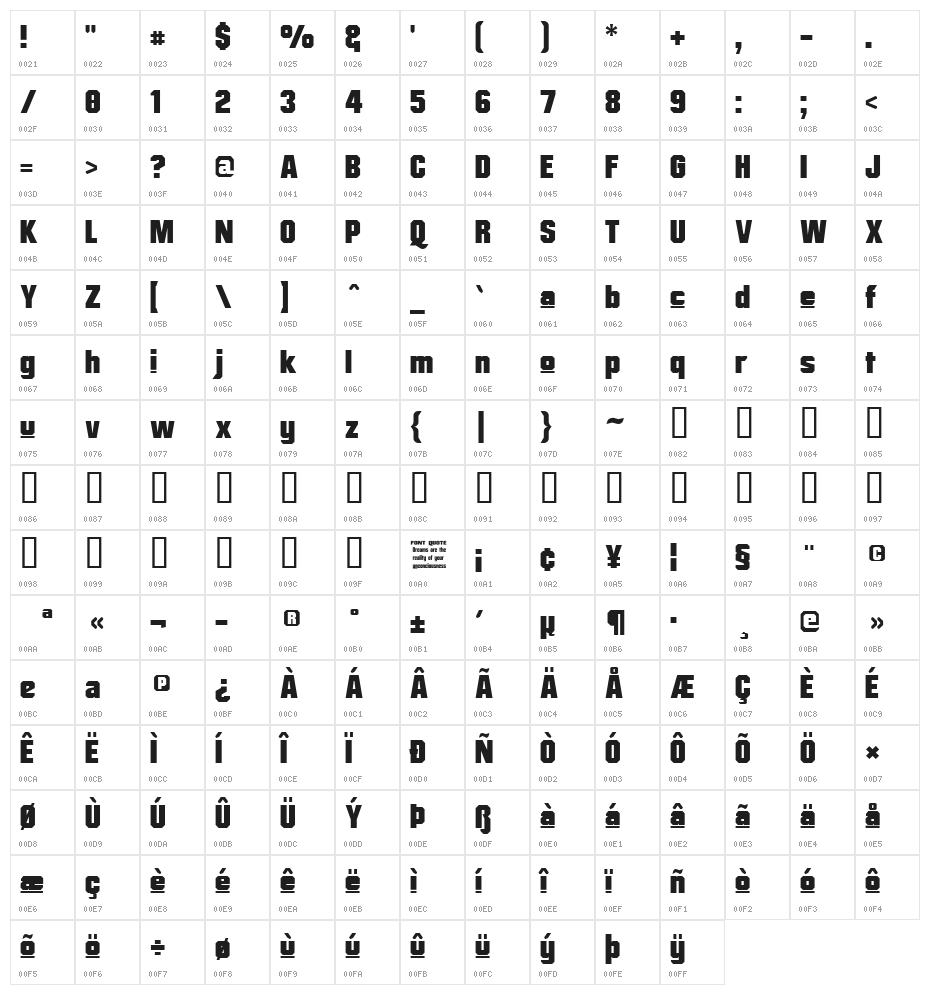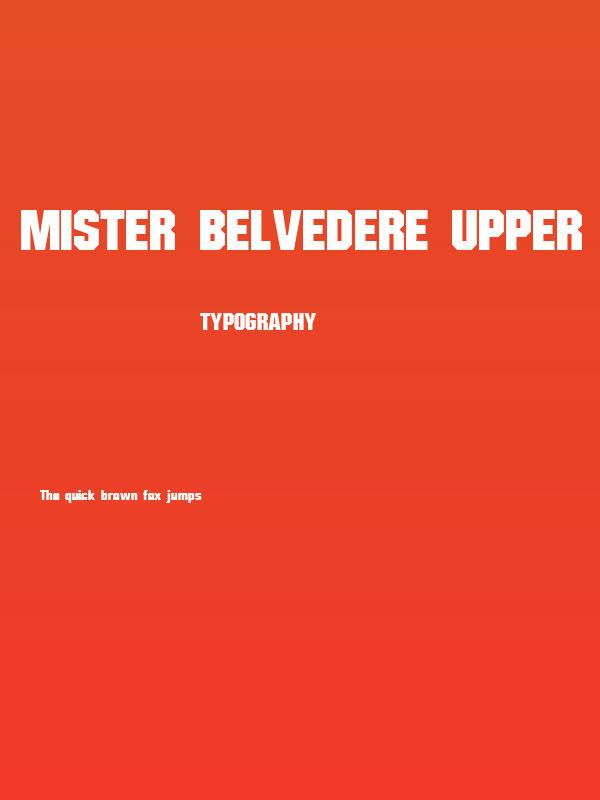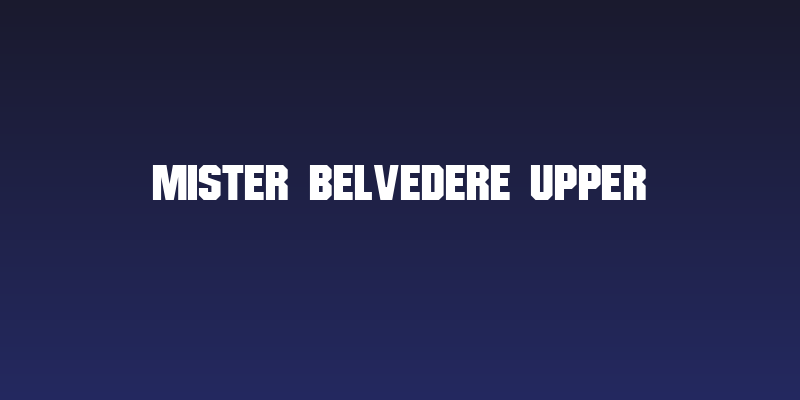
Mister Belvedere Upper Font
Mister Belvedere Upper Description
This font features a bold, geometric design with strong, angular lines and a robust presence. The uppercase letters are uniform in height, creating a cohesive and powerful look. The lowercase letters maintain the same boldness, with some characters having unique, sharp angles that add a distinctive flair. Numbers are equally bold and consistent, making them highly legible. Special characters are designed to match the overall bold aesthetic, ensuring uniformity across all glyphs. The font's design is reminiscent of industrial or sports-themed styles, making it suitable for impactful and attention-grabbing text.
| Proposed Projects | Ideal for sports branding, posters, headlines, and any project requiring a strong, impactful typeface. |